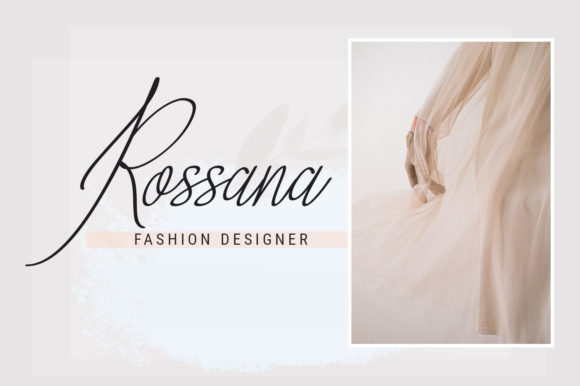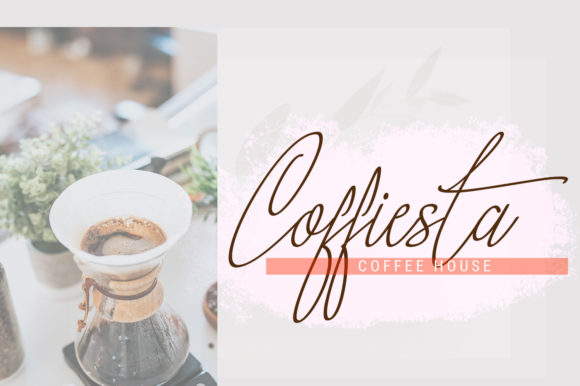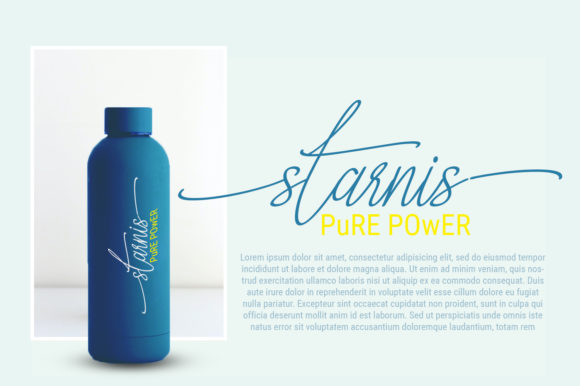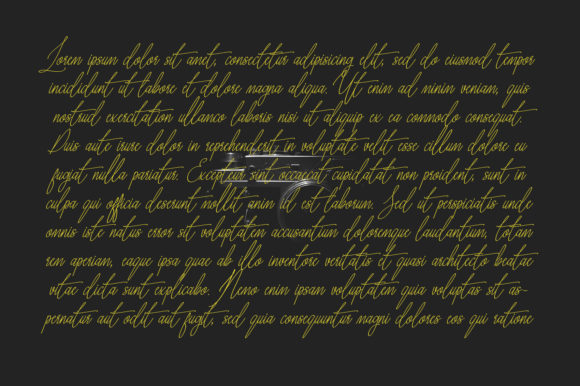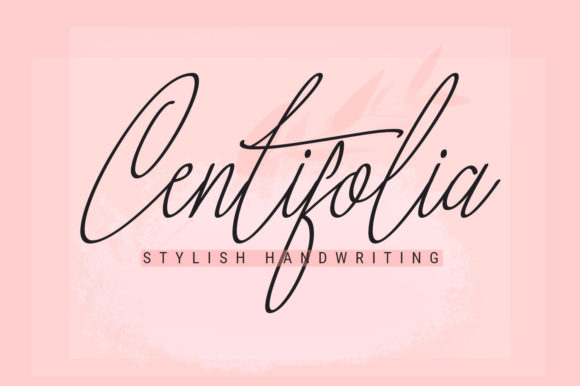
Introducing Centifolia Font: Elevate Your Designs with Elegance
In the world of typography, a font can make or break a design. If you’re a designer, crafter, or DIY enthusiast looking for that perfect touch of elegance, look no further than the Centifolia Font. This stylish and delicate script font is about to become your new go-to for adding a clean, thin, and smooth vibe to any project.
What is Centifolia Font?
Centifolia is a beautifully crafted script font that exudes sophistication and charm. Its delicate strokes and smooth lines make it perfect for a wide range of design applications, from stationery and branding to packaging and digital media. Whether you’re creating wedding invitations, business cards, or social media graphics, Centifolia Font is sure to impress.
Key Features of Centifolia Font
- Clean and Thin Design: Centifolia Font boasts a sleek and slender design that will add a touch of refinement to any project.
- Smooth Lines: The font’s smooth lines and curves create a beautiful, fluid look that’s perfect for designs that require a high level of elegance.
- PUA Encoded: Centifolia Font is PUA (Private Use Area) encoded, which means you can easily access all the glyphs and swashes to take your designs to the next level.
- Versatile: This font is perfect for a wide range of design applications, from print to digital media.
Benefits of Using Centifolia Font
So, why choose Centifolia Font for your next design project? Here are just a few benefits you can expect:
- Adds Elegance to Your Designs: Centifolia Font is the perfect way to add a touch of sophistication and elegance to your designs.
- Easy to Use: With its PUA encoding, you can easily access all the glyphs and swashes, making it simple to incorporate into your designs.
- Time-Saving: With Centifolia Font, you can create beautiful designs in no time, saving you hours of work and frustration.
Who Can Benefit from Centifolia Font?
Centifolia Font is perfect for:
- Graphic Designers: Add a touch of elegance to your designs and take your clients’ branding to the next level.
- Crafters: Create beautiful, professional-looking crafts, such as handmade cards, invitations, and gift tags.
- DIY Enthusiasts: Add a personal touch to your DIY projects, such as home decor, wedding decorations, and party planning.
- Small Business Owners: Elevate your branding and marketing materials with a sophisticated and elegant font.
Tips for Using Centifolia Font
Here are a few tips for getting the most out of Centifolia Font:
- Experiment with Different Sizes: Centifolia Font looks great in a variety of sizes, from small and delicate to large and bold.
- Pair with Other Fonts: Try pairing Centifolia Font with other fonts to create a unique and visually appealing design.
- Use Swashes and Glyphs: Take advantage of the font’s PUA encoding to add swashes and glyphs to your designs.
In conclusion, Centifolia Font is a stylish and delicate script font that’s perfect for designers, crafters, and DIY enthusiasts looking to add a touch of elegance to their designs. With its clean, thin, and smooth design, PUA encoding, and versatility, this font is sure to become a staple in your design toolkit. So why wait? Download Centifolia Font today and start creating beautiful, professional-looking designs that will leave a lasting impression.